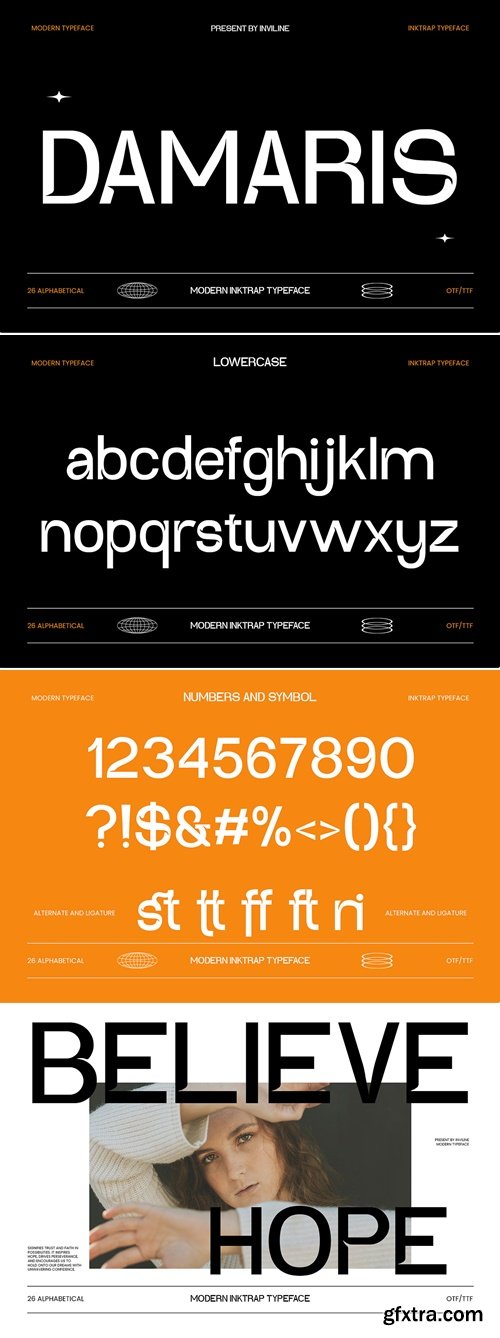
CreativeMarket - Damaris - Ink Trap Font
- Bring a touch of Inktrap Font to your designs with this meticulously crafted font collection. Perfect for adding a Modern Edgy vibes to your branding, packaging, logos, and more.